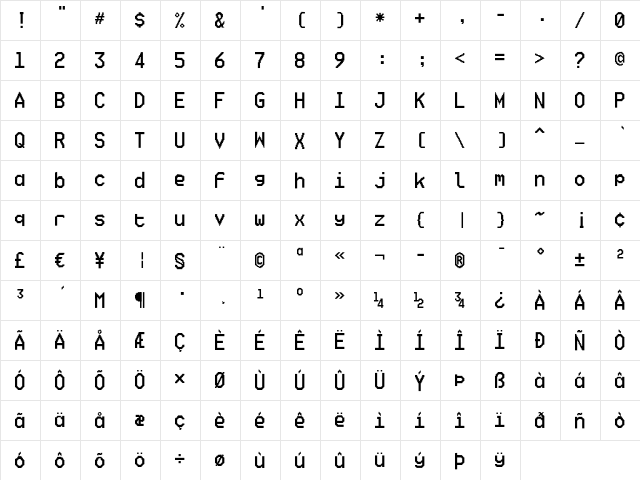
Ticketing Regular
| Foundry | K-Type |
| Designer | Keith Bates |
| Year | 2010 |
Design Context for Ticketing Typeface
Ticketing is a composed and adaptable typeface that performs quietly and consistently across a wide range of design contexts.